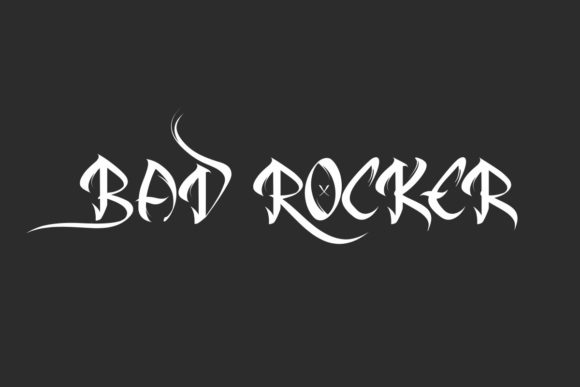
Introducing Bad Rocker Font, the ultimate font choice for those seeking a cool and assertive blackletter style. Crafted with the creativity of a rock star, this font is sure to captivate and inspire. Whether you're designing headings, logos, branding, quotes, or products, Bad Rocker is the font that will take your project to the next level.
Created by vintype, a renowned name in the world of typography, Bad Rocker Font offers a unique blend of edginess and elegance. Its rock star-inspired styles make a bold statement, setting your text apart from the mundane and ordinary. With this font, your message will resonate with power and confidence.
But what sets Bad Rocker Font apart from others is its versatility. It seamlessly adapts to various projects, enhancing their visual appeal. Whether you're a graphic designer, a marketer, or a creative enthusiast, this font is your secret weapon to creating eye-catching and memorable designs.
One of the key features of Bad Rocker Font is its extensive glyph collection. With PUA encoding, accessing all the unique characters, glyphs, and swashes is a breeze. The possibilities are endless as you explore the various combinations and customize your text to perfection.
Imagine the impact of words styled in Bad Rocker Font. They command attention, evoke emotions, and leave a lasting impression. Your brand will stand out from the clutter, drawing customers in with its distinctive appeal. And for personal projects, Bad Rocker Font adds a touch of rebelliousness and individuality, making your creations truly one-of-a-kind.
Don't settle for ordinary fonts that fail to make a statement. Choose Bad Rocker Font and let your words speak volumes. Embrace its cool and assertive blackletter style, and watch as your designs come alive with energy and character. Take your projects to new heights with this font for text that demands attention.